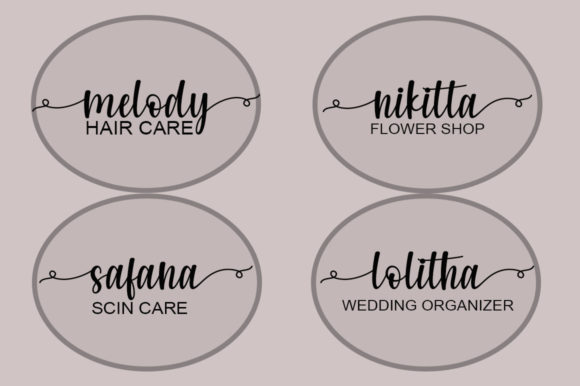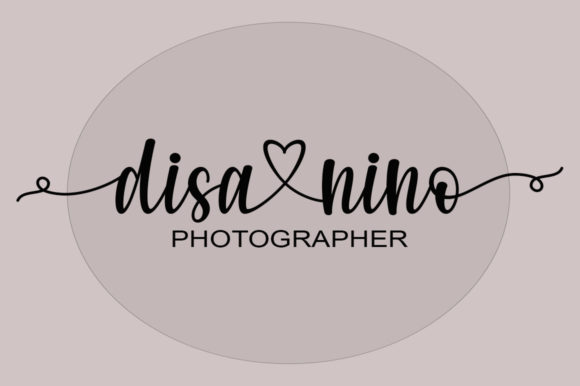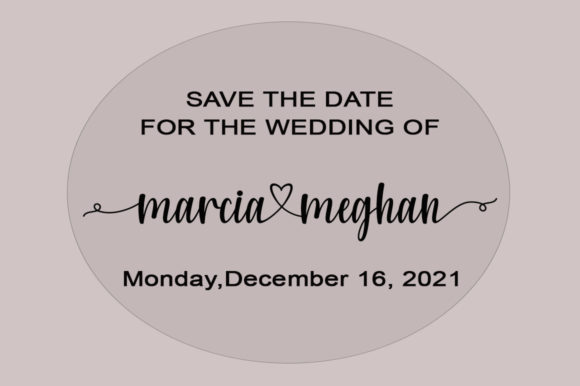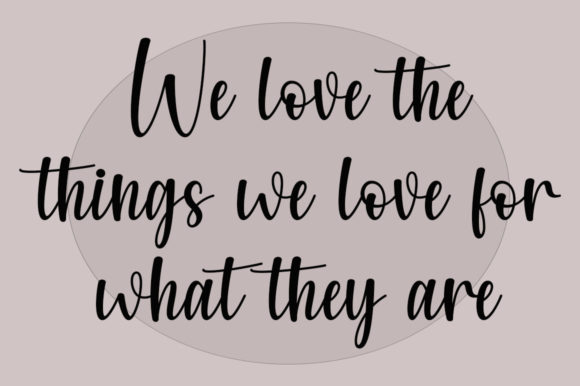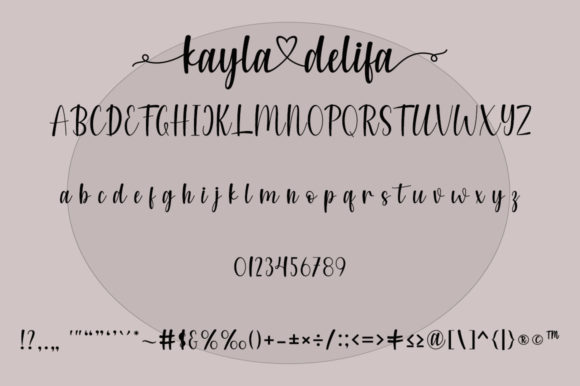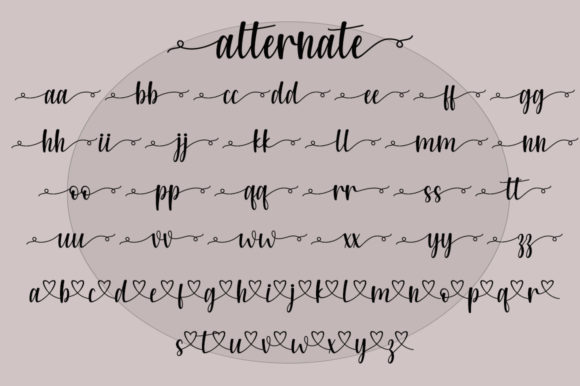
Introduction to Kayladelifa Font
Have you ever been in the middle of a creative project, staring at a blank canvas or a blank page, searching for the perfect font to bring your vision to life? The struggle is real, but what if I told you that I’ve found the perfect solution? Enter the enchanting Kayladelifa Font, a romantic and sweet calligraphy typeface that’s sure to add a luxury spark to any design project.
With its elegant characters that dance along the baseline, Kayladelifa Font is the perfect addition to any designer’s toolkit. Whether you’re working on a wedding invitation, a luxury brand logo, or a high-end website, this font is sure to impress. And the best part? It’s PUA encoded, making it easy to access all the amazing glyphs and ligatures you need to take your design to the next level.
Key Features of Kayladelifa Font
- Unique, elegant script font with a transparent background, perfect for adding a touch of sophistication
- Supports multiple languages, making it a versatile design resource for global creative projects
- Features a high-resolution design (300 DPI) for crisp and clear text display
- Perfect for use in logos, branding, and other design elements where a touch of elegance is required
Honest Review: Kayladelifa Font
I recently stumbled upon the Kayladelifa Font while searching for a design resource for a creative project, and I’m excited to share my thoughts on this free download.
- ✨ Unique and creative design aesthetic that sets it apart from other fonts.
- ✨ High quality, clear typography that makes it easy to read even at smaller font sizes.
- ✨ Transparent background, making it easy to place on any background without worrying about a distracting outline.
- ⚠️ Limited language support, which might be a concern for designers working on international projects.
- ⚠️ Some characters may not be as stylized as others, which can create an inconsistent look.
Overall, I’m impressed with the Kayladelifa Font. While it may have some limitations, its unique design and high quality typography make it a valuable addition to any designer’s toolkit. If you’re looking for a creative solution for your design project, I’d definitely recommend giving it a try.
Tips for Getting the Most Out of Kayladelifa Font
Here are some tips for getting the most out of the Kayladelifa Font:
- Use the font in combination with other design elements to create a unique and creative project.
- Experiment with different font sizes and styles to find the perfect look for your project.
- Take advantage of the transparent background to create a clean and modern design.
Common Use Cases for Kayladelifa Font
The Kayladelifa Font is perfect for a variety of creative projects, including:
- Reports